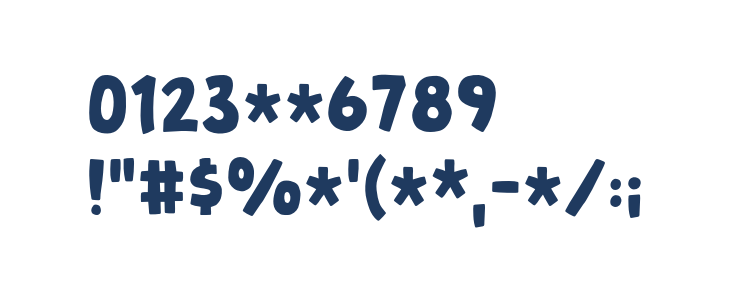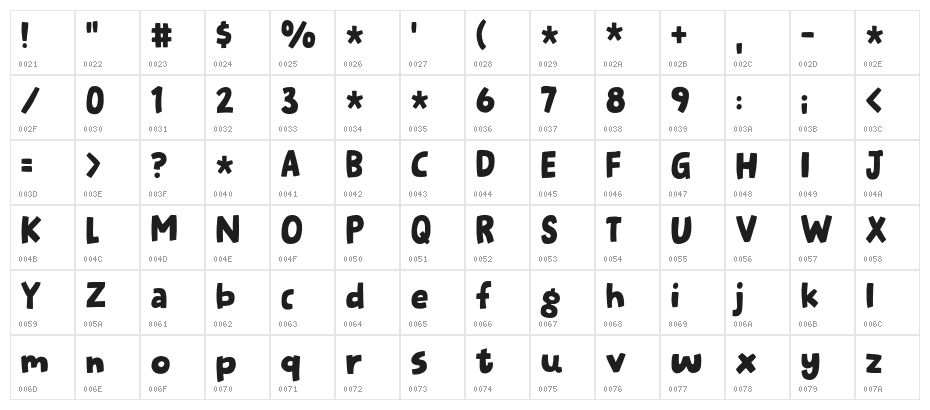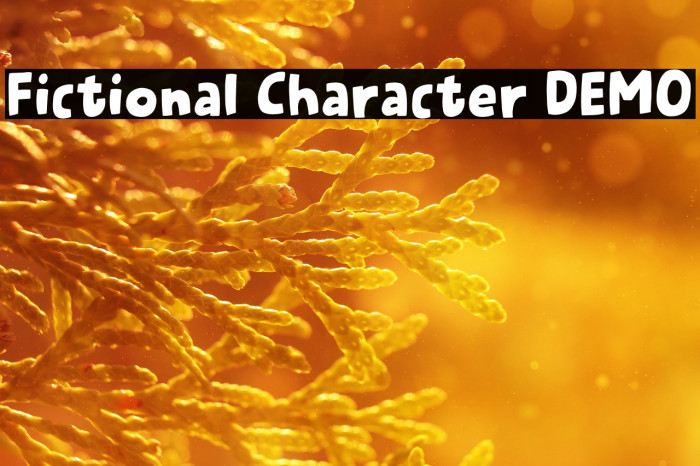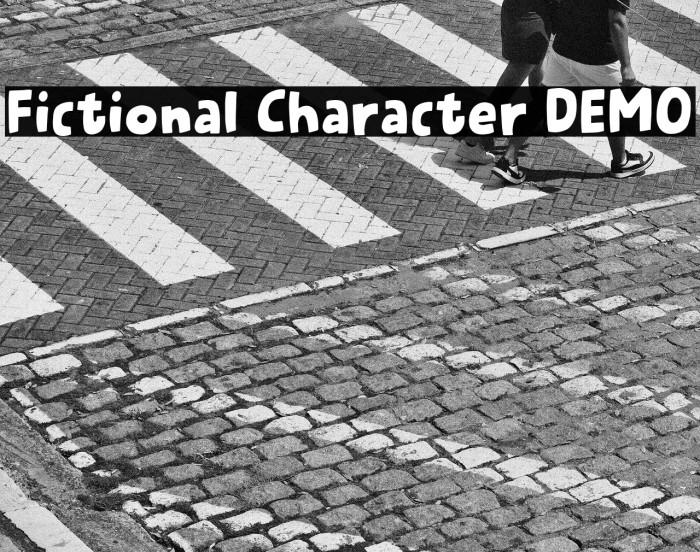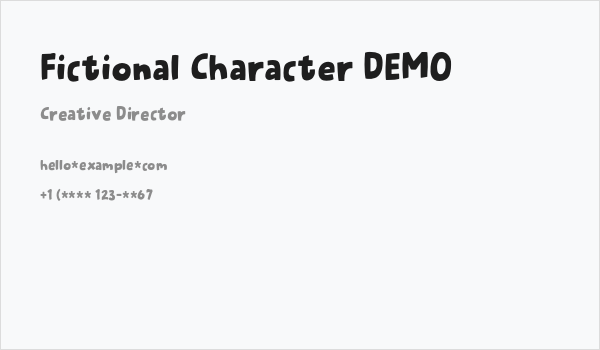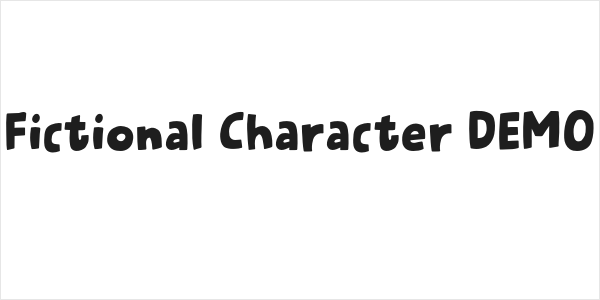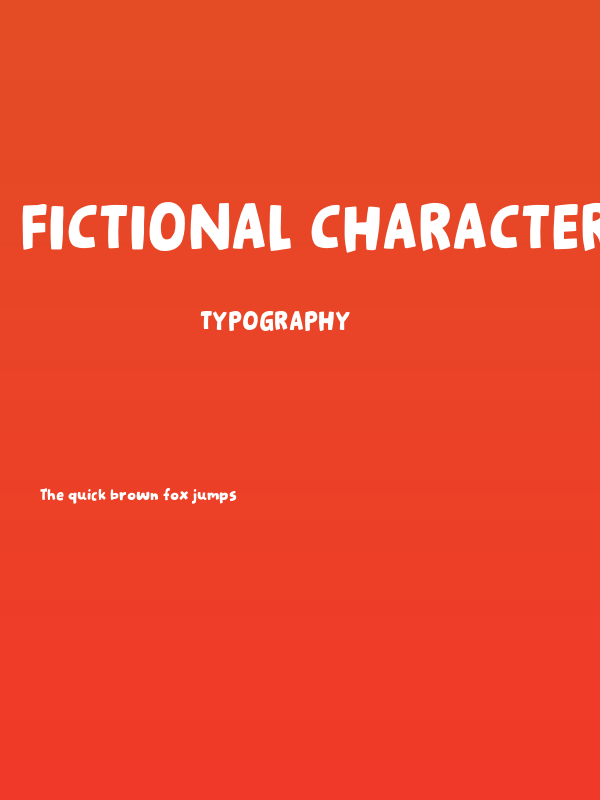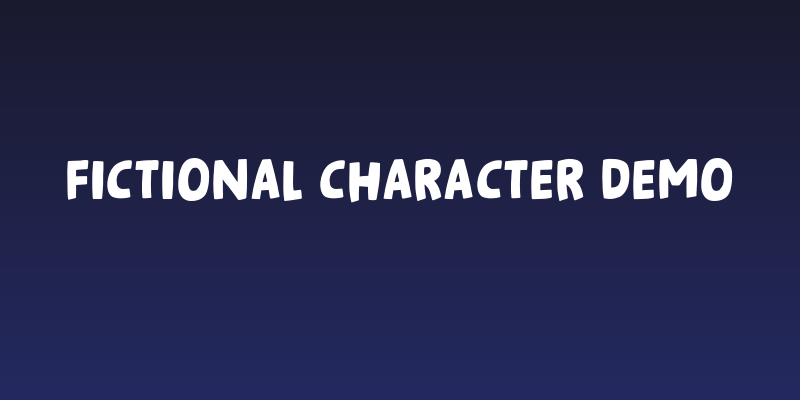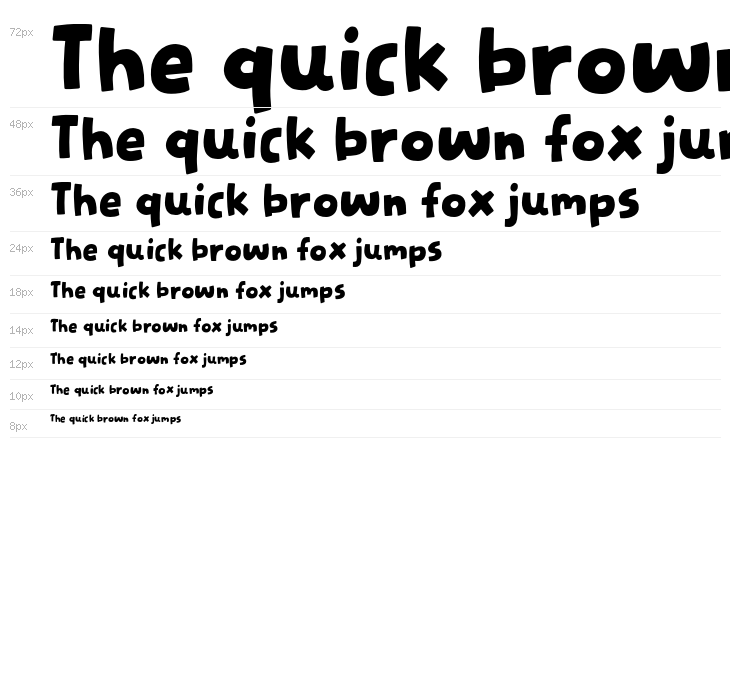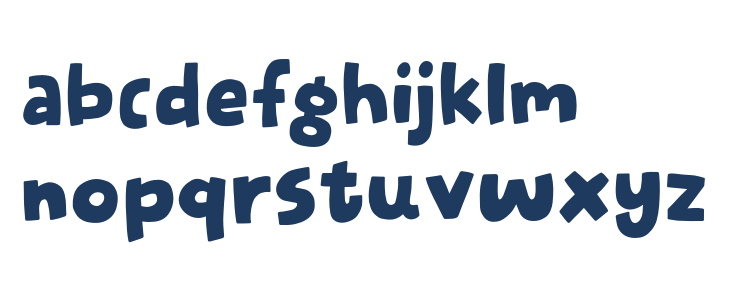
Fictional Character DEMO Font
Fictional Character DEMO Description
This playful and bold font features a hand-drawn, cartoonish style with thick strokes and rounded edges. The characters are slightly irregular, giving them a whimsical and informal appearance. The uppercase and lowercase letters maintain a consistent style, while the numerals and special characters complement the overall design. The font exudes a sense of fun and creativity, making it suitable for projects that require a lively and engaging visual element.
| Proposed Projects | Ideal for children's books, comic strips, playful branding, and creative posters. |